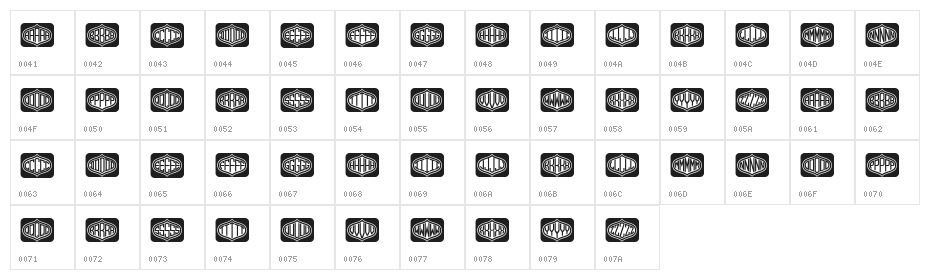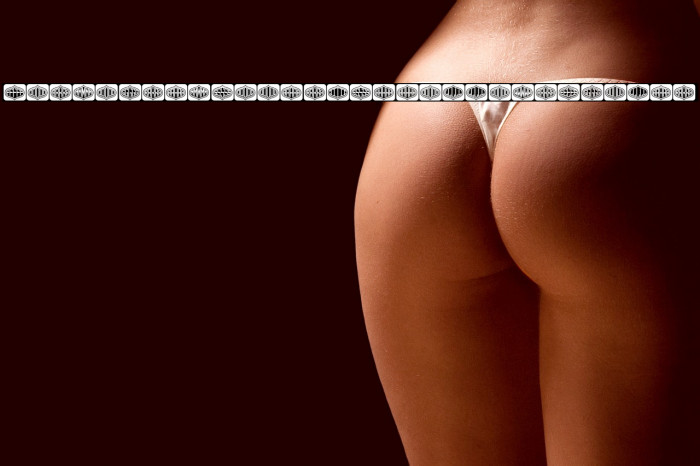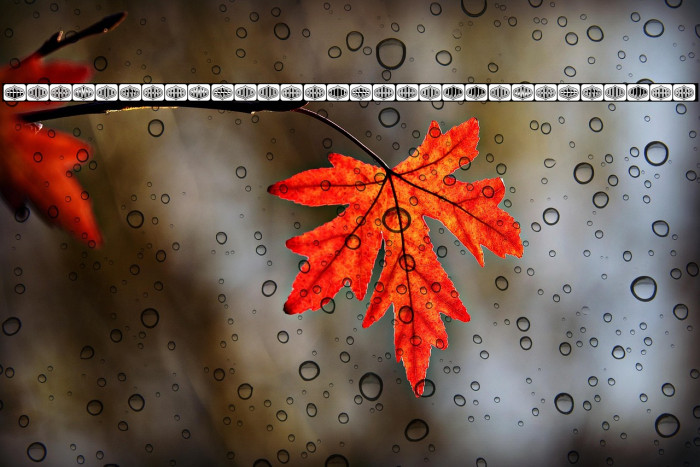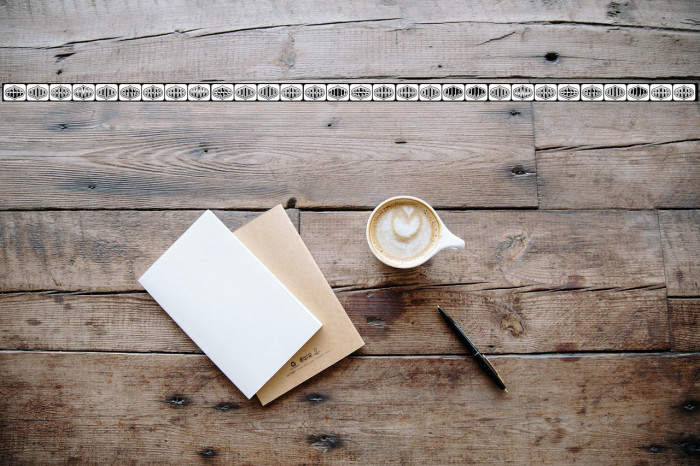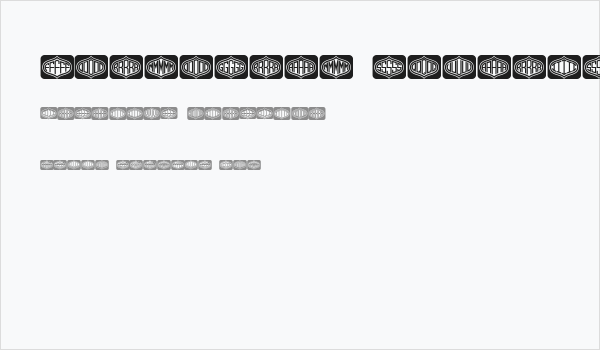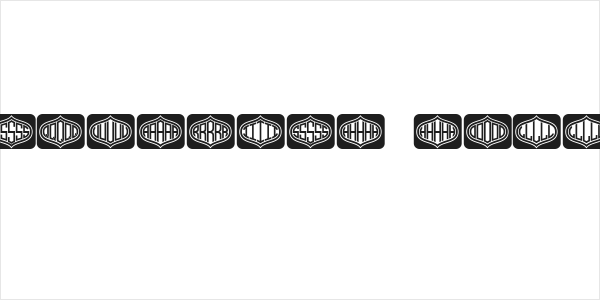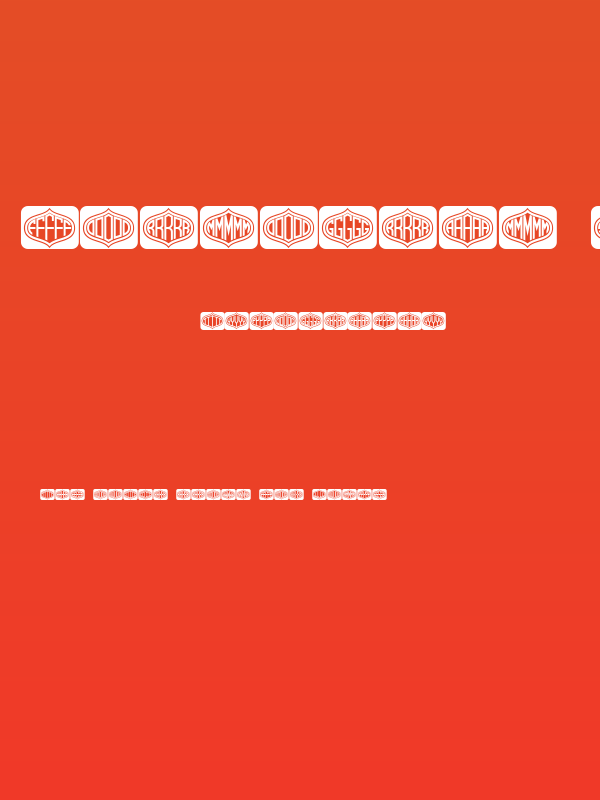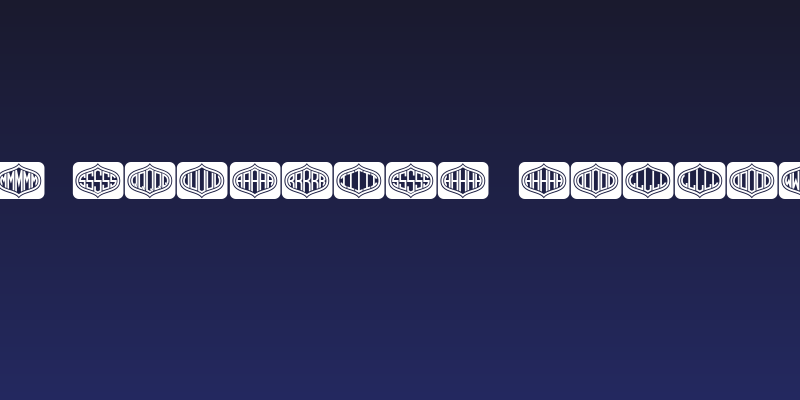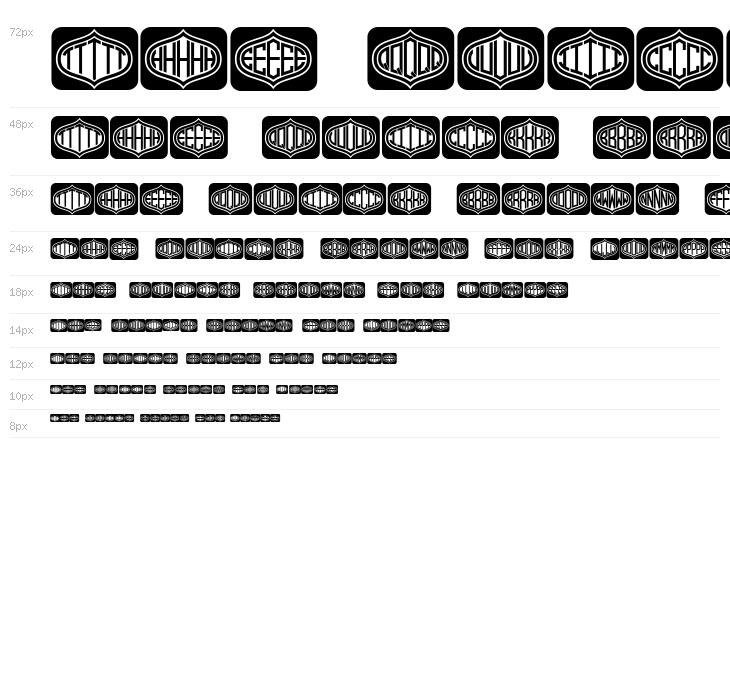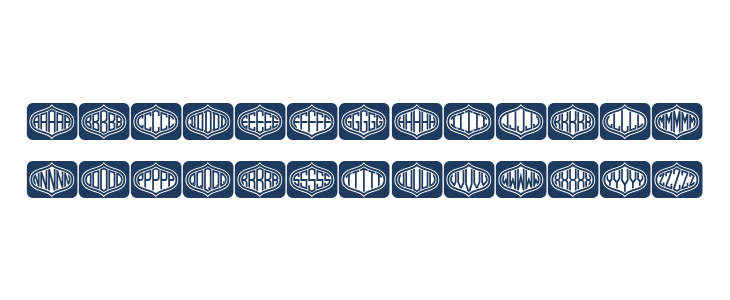
Formogram Squarish Hollow Regular Font
Formogram Squarish Hollow Regular Description
This font features a unique hollow design with a squarish appearance, characterized by its geometric and symmetrical shapes. Each character is enclosed within a rounded rectangular border, giving it a distinct and bold look. The letters are evenly spaced, maintaining a consistent width and height across all characters. The hollow nature of the font allows for a modern and futuristic aesthetic, making it stand out in various design contexts. Its clean lines and structured form make it suitable for projects that require a strong visual impact.
| Use Case | Logos, Posters, Digital Media |
| Proposed Projects | Ideal for branding, logos, posters, and digital media where a modern and bold statement is needed. |